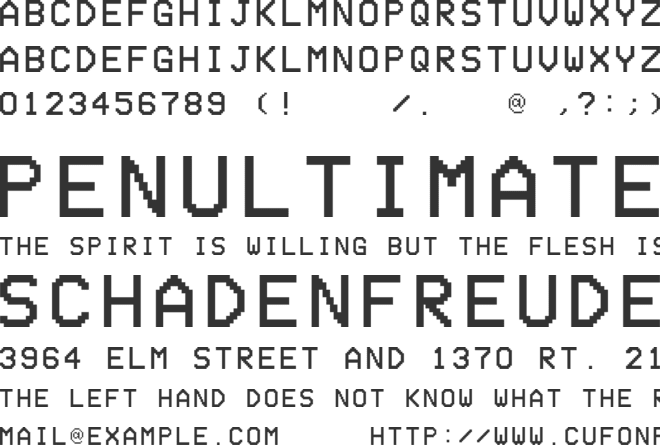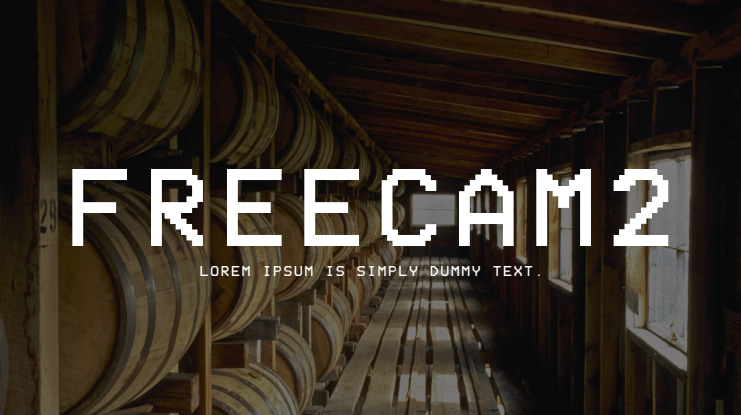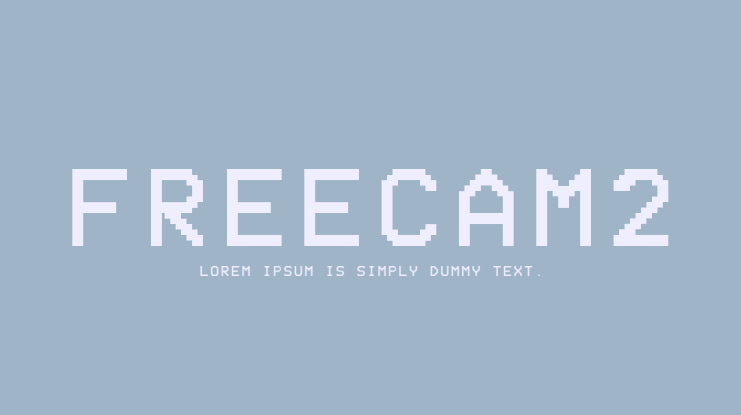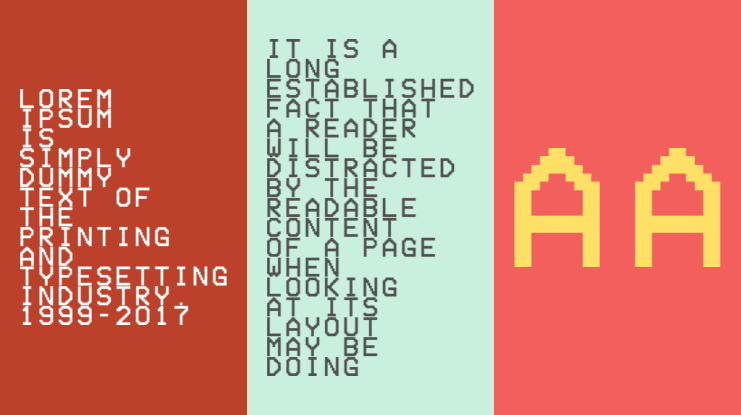
freecam2 Font
FREECAM v2 is a public domain font created by Michelle Lyons. It is intended to be used to emulate the in-camera titling facilities of early consumer video cameras.
Version 1 only had alphanumeric characters, but Version 2 includes some of the most commonly-used punctuation marks. As this font is public domain, it may be used by anyone for any purpose, including commercial ones. Editing of the font is also allowed.